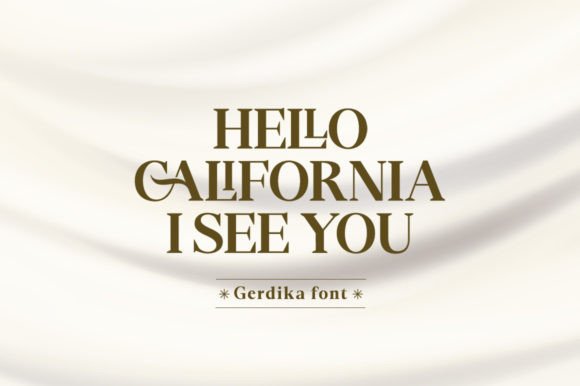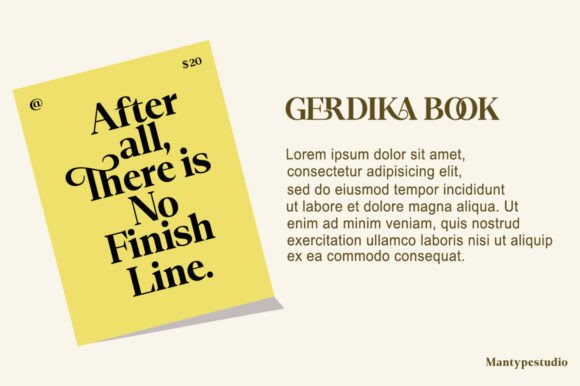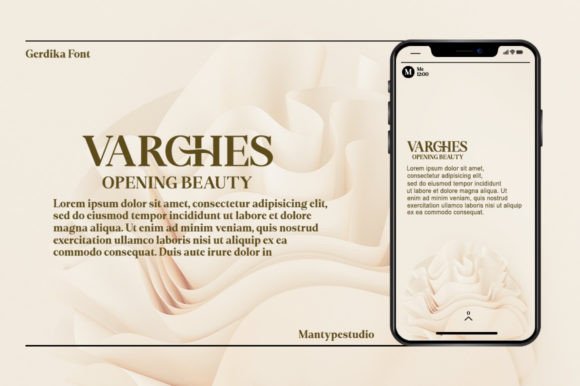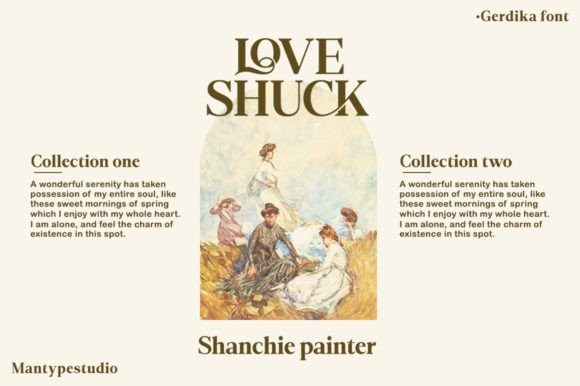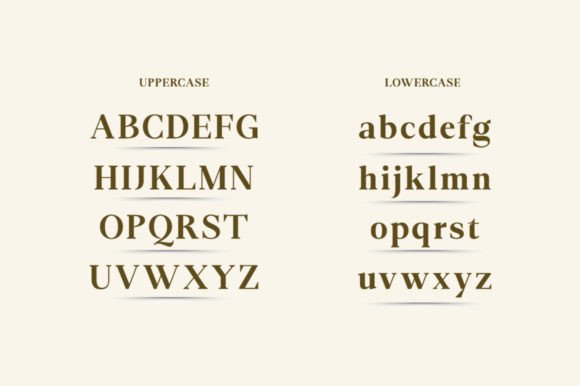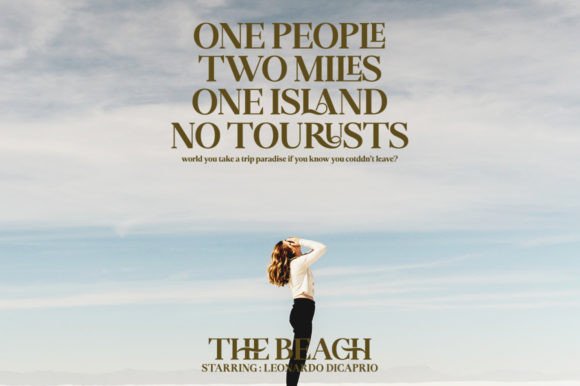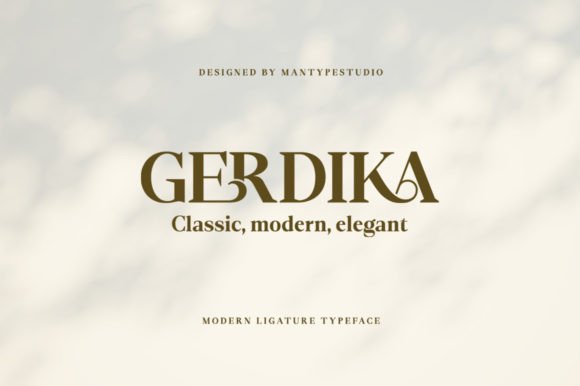
Discover the Versatility of Gerdika Font: A Multipurpose Typeface for Editorial Excellence
In the realm of typography, a well-crafted font can make all the difference in the visual appeal and readability of editorial content. Gerdika Font, designed by Sulai Man, is a remarkable typeface that has been specifically created for intensive editorial use in newspapers, magazines, and online platforms. Its unique blend of personality and flexibility makes it an ideal choice for designers and crafters seeking a multipurpose font that can excel in various applications.
The Birth of Gerdika: A Font Designed for Editorial Excellence
Gerdika Font was conceived with the goal of providing a robust and reliable typeface that can withstand the demands of intensive editorial use. Sulai Man’s design expertise has resulted in a font that boasts an intermediate weight, delivering a neutral look when used in text sizes. This feature makes Gerdika an excellent choice for body text, as it provides the usual robustness expected in a newspaper font without overpowering the content.
Unobtrusive yet Effective: Gerdika’s Unique Characteristics
One of the standout features of Gerdika Font is its unobtrusive appearance, which allows it to behave flawlessly in continuous text, even in the most unforgiving editorial applications. The font’s excellent texture and slightly nuanced color contribute to its ability to blend seamlessly into the background, making it an ideal choice for lengthy articles and essays. As the font size increases, Gerdika’s personality begins to shine through, revealing a series of measured particularities that make it easy to remember and identify.
Energetic and Expressive: Gerdika in Headlines and Subheadings
While Gerdika Font excels in body text, it truly comes alive when used for subheadings and headlines. Its energetic character and measured particularities make it an excellent choice for adding visual interest and emphasis to key points in an article. As the font size increases, Gerdika’s personality becomes more pronounced, allowing designers to create a clear visual hierarchy that guides the reader’s attention through the content.
A Multipurpose Font for the Modern Designer
Gerdika Font’s versatility is one of its most significant strengths. Its ability to excel in various editorial applications makes it an ideal choice for designers and crafters who require a reliable and flexible font for their projects. Whether working on a newspaper, magazine, or online publication, Gerdika Font provides a consistent and high-quality appearance that enhances the overall reading experience.
Key Features of Gerdika Font
- Specifically designed for intensive editorial use in newspapers, magazines, and online platforms
- Intermediate weights deliver a neutral look in text sizes
- Unobtrusive appearance and excellent texture for seamless integration into continuous text
- Slightly nuanced color for added visual interest
- Energetic character and measured particularities for standout headlines and subheadings
- Multipurpose font suitable for various editorial applications
| Font Name | Gerdika Font |
| Author | Mantype Studio |
Gerdika Font is a remarkable typeface that offers a unique blend of personality, flexibility, and reliability. Designed specifically for editorial use, it excels in a variety of applications, from body text to headlines and subheadings. Its unobtrusive appearance, excellent texture, and energetic character make it an ideal choice for designers and crafters seeking a high-quality font for their projects. With Gerdika Font, you can elevate your editorial content and create a lasting impression on your readers.